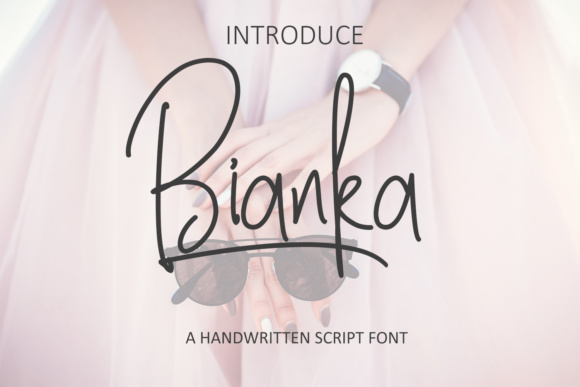
Unleash the charm and grace of Bianka Font, the exquisite creation of Azcreative Studio. This captivating monoline script font is a true masterpiece, meticulously crafted to bring a touch of sophistication and style to your creative projects. Dive into the world of Bianka and discover a font that will transform your designs with its elegant curves and flowing lines.
Visualize your fashion designs adorned with the delicate strokes of Bianka Font, adding a dash of chic and allure to your collections. Let your brand's message shine with the refined artistry of Bianka, leaving a lasting impression on your customers. From logos and branding to social media posts and website designs, Bianka Font is your key to captivating your audience and standing out from the crowd.
Imagine the allure of your wedding invitations or greeting cards adorned with the graceful sweeps of Bianka Font. Its romantic and timeless essence will add a touch of heartfelt elegance to your special moments, leaving a lasting impression on your loved ones. Create designs that radiate warmth and charm, showcasing the beauty of your words with Bianka Font as your artistic partner.
Step into the world of Bianka Font and elevate your creative expression to new heights. Whether you're designing logos, posters, social media graphics, or any other project that demands a touch of sophistication, Bianka Font is your perfect companion. Its versatility knows no bounds, allowing you to explore endless possibilities and create designs that captivate and inspire.
With Bianka Font, you'll discover a font that speaks volumes without uttering a single word. Its enchanting curves and delicate flourishes will add depth and character to your designs, captivating your audience and leaving them spellbound. Embrace the allure of Bianka Font today and embark on a creative journey where elegance and style reign supreme.